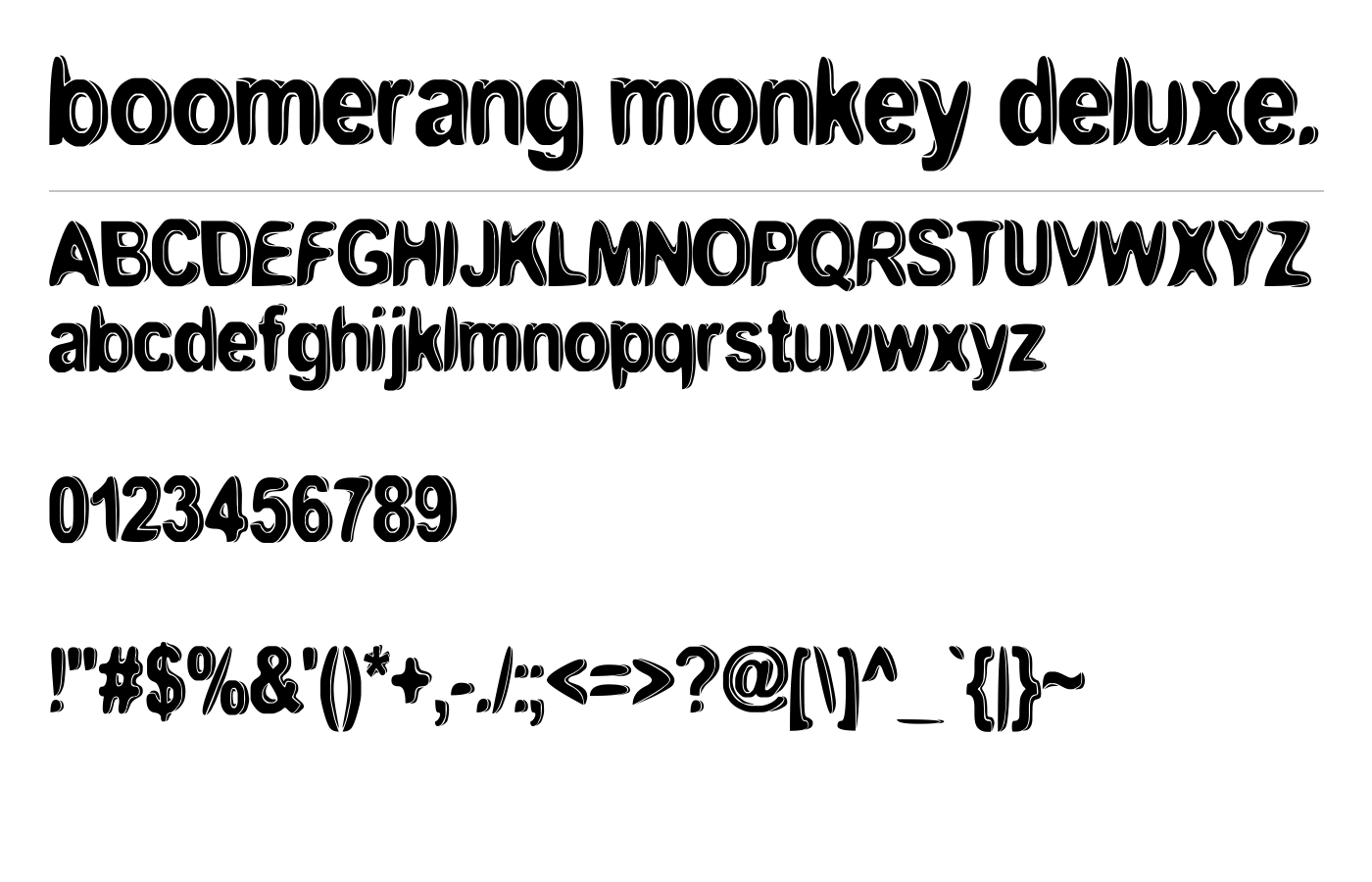
Boomerang Monkey Deluxe is a bold, playful sans serif font with a quirky, chunky design that features irregular curves and a slight hand-drawn feel. Its high contrast between thick and thin strokes combined with rounded, exaggerated shapes gives it a fun and energetic personality, making it ideal for eye-catching headlines, logos, and creative projects that want to convey a lively and informal vibe. This font works especially well in contexts where a whimsical and approachable style is desired.